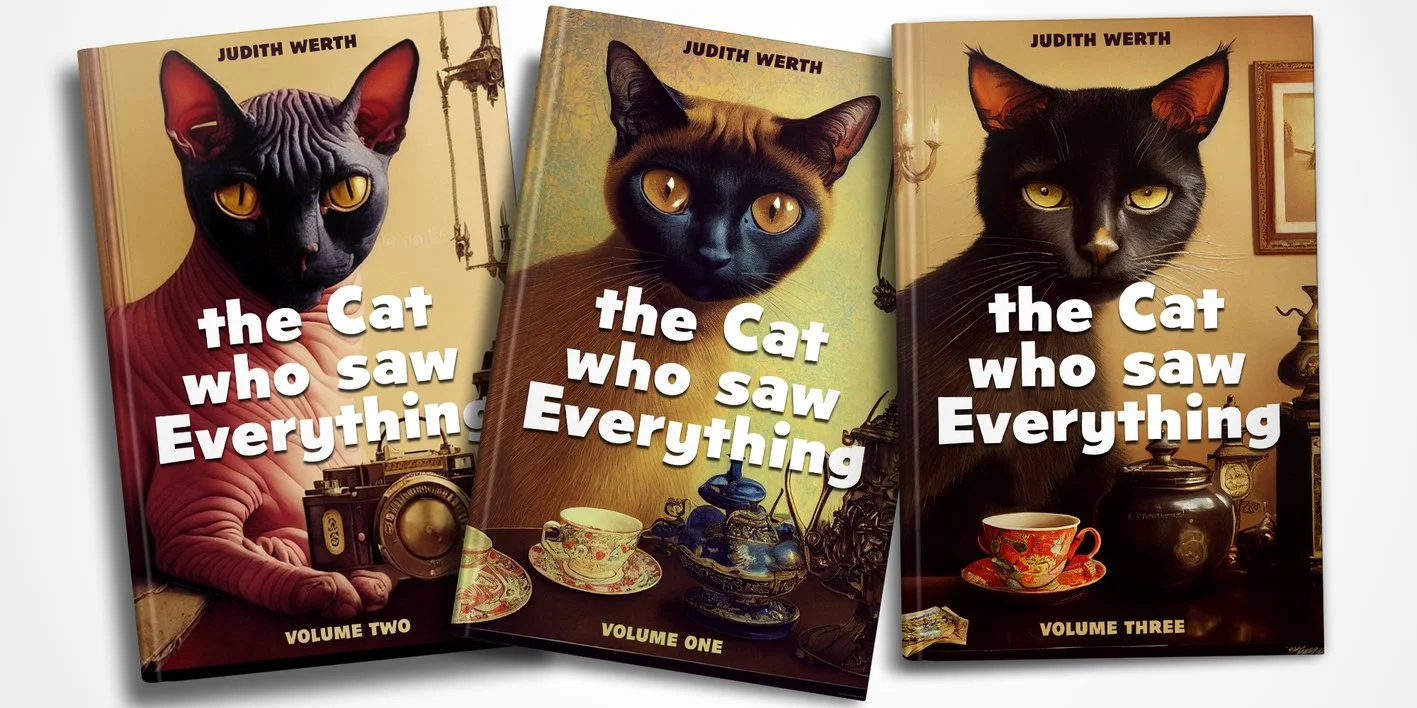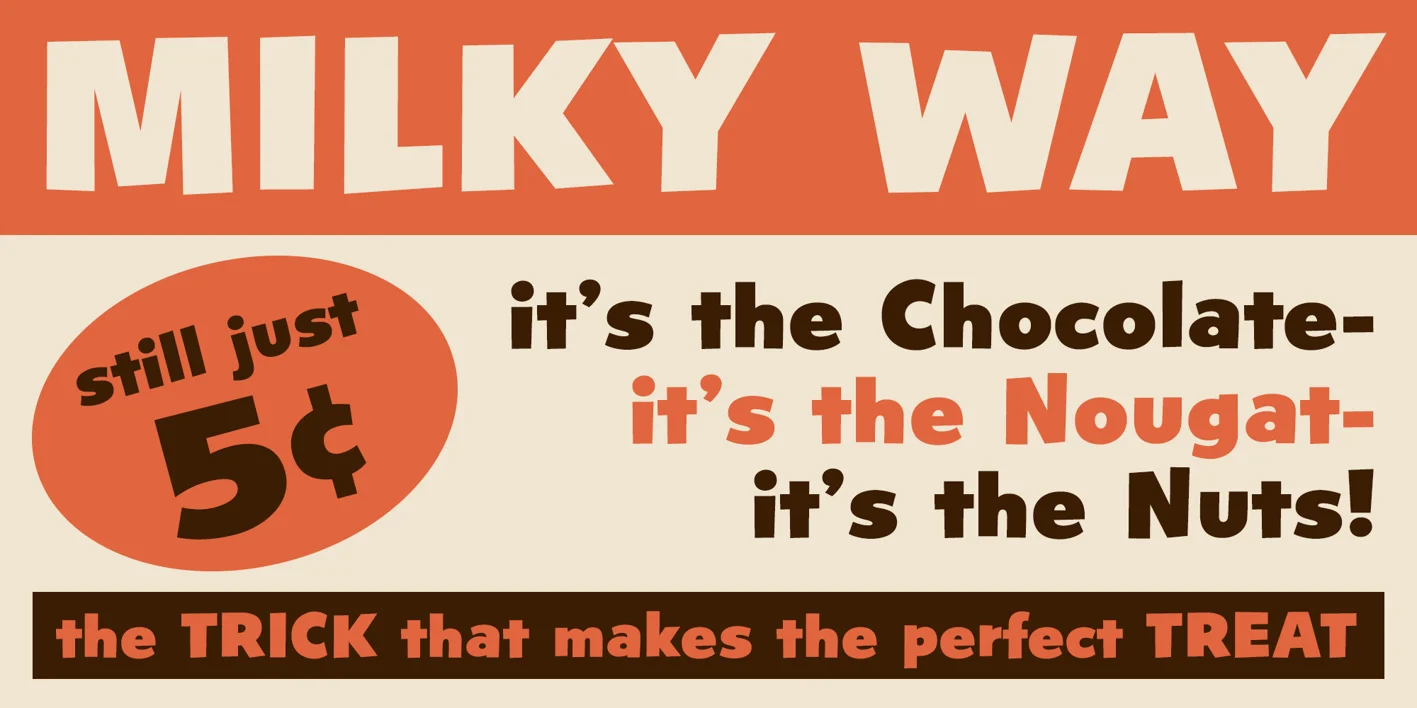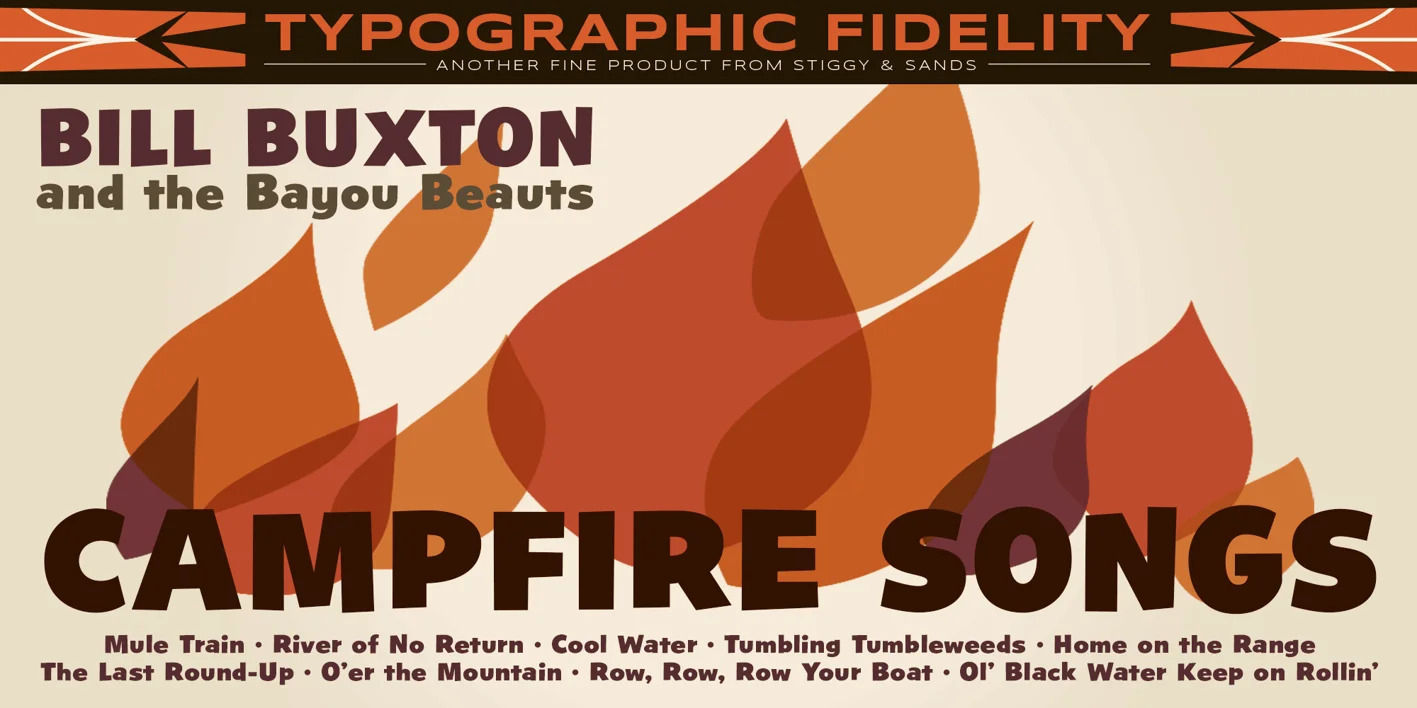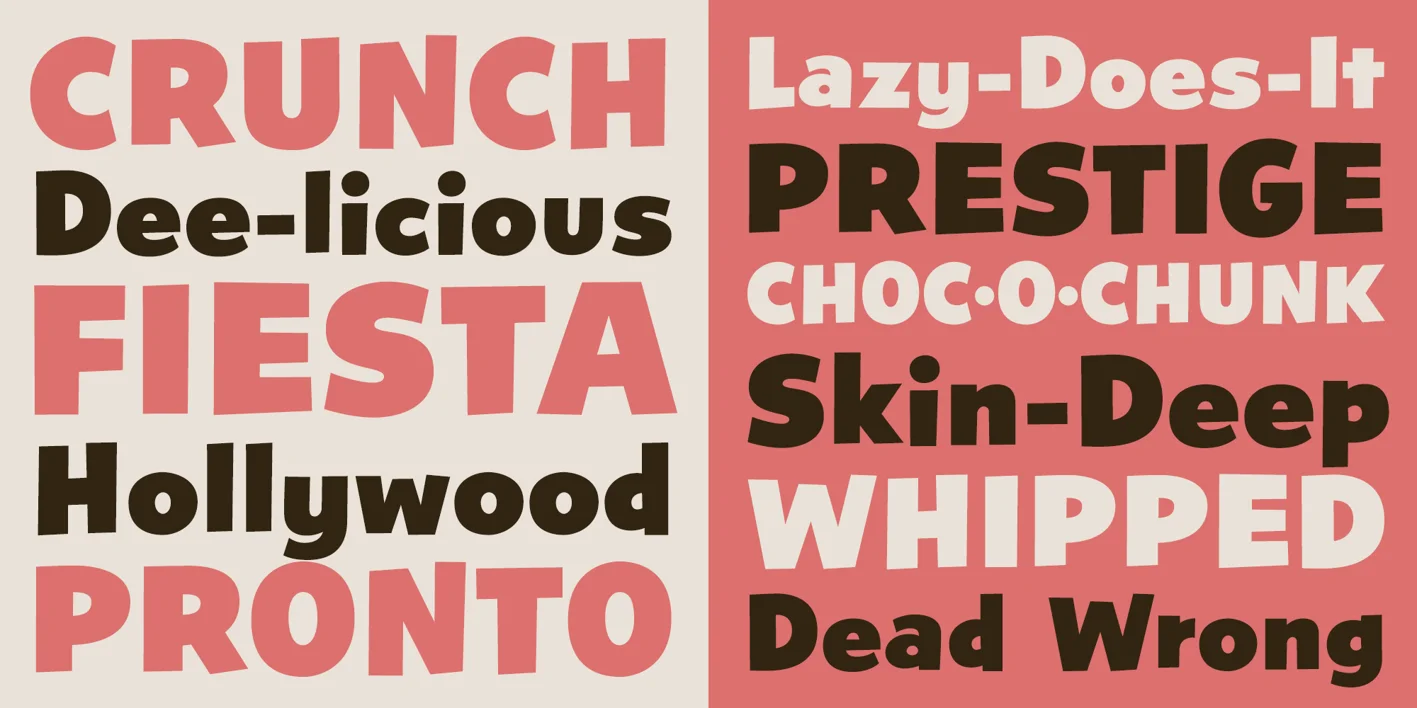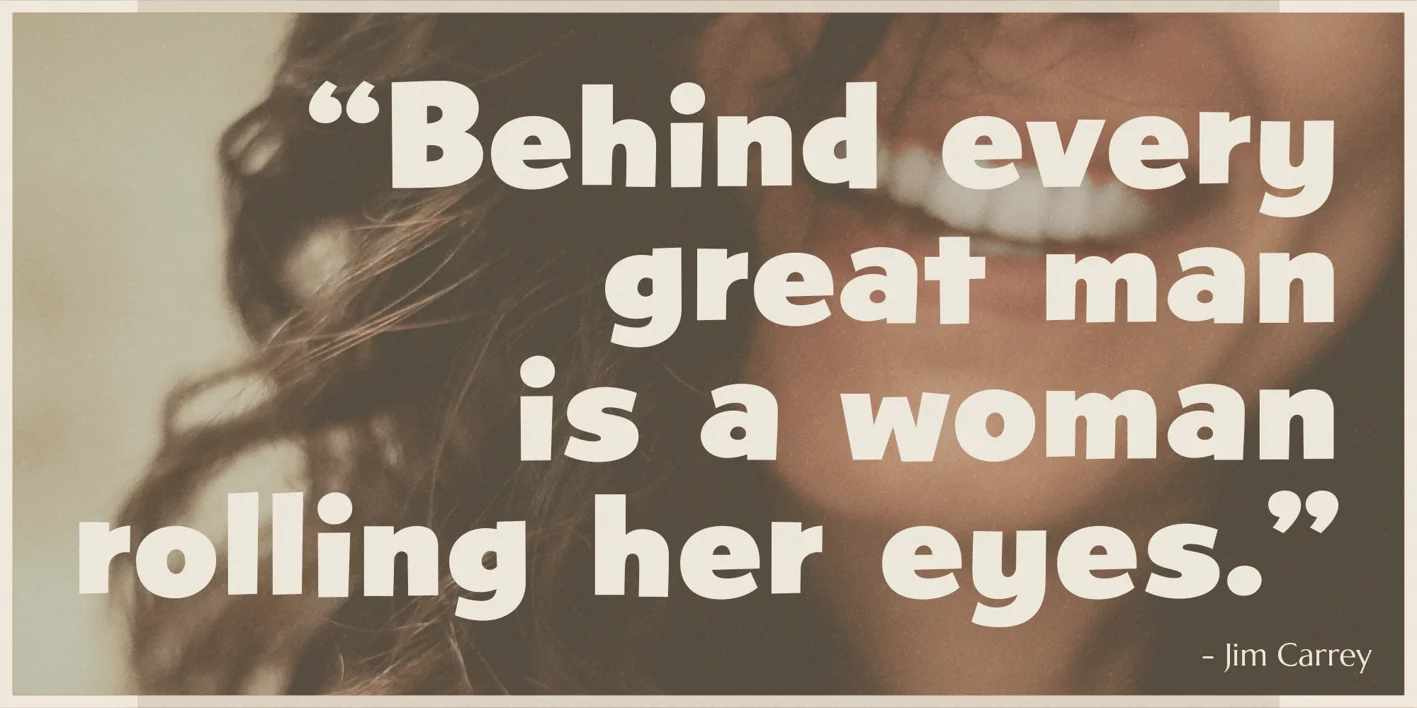
A good typeface communicates tone before a single word is read. Toastie achieves this through distinctive character without sacrificing readability. The typeface brings a versatile sensibility to a broad range of creative disciplines, with consistent type colour across continuous text that holds up whether the work is print-first or screen-first.
In practice, Toastie proves particularly effective for logo design, advertising campaigns, signage systems, annual reports, product labels. Designers reaching for it find that the type decisions feel resolved rather than laboured — a useful quality when client timelines are tight.
The range of applications extends to environmental graphics, web design, editorial layouts, poster creation. That breadth is deliberate: the proportions and spacing were stress-tested across a wide range of mock briefs before the typeface was finalised.
Motion designers building title sequences and lower thirds find Toastie a reliable choice for projects that demand both personality and restraint. The design avoids the self-conscious quirkiness that dates quickly, settling instead for considered distinctiveness that holds up over time.